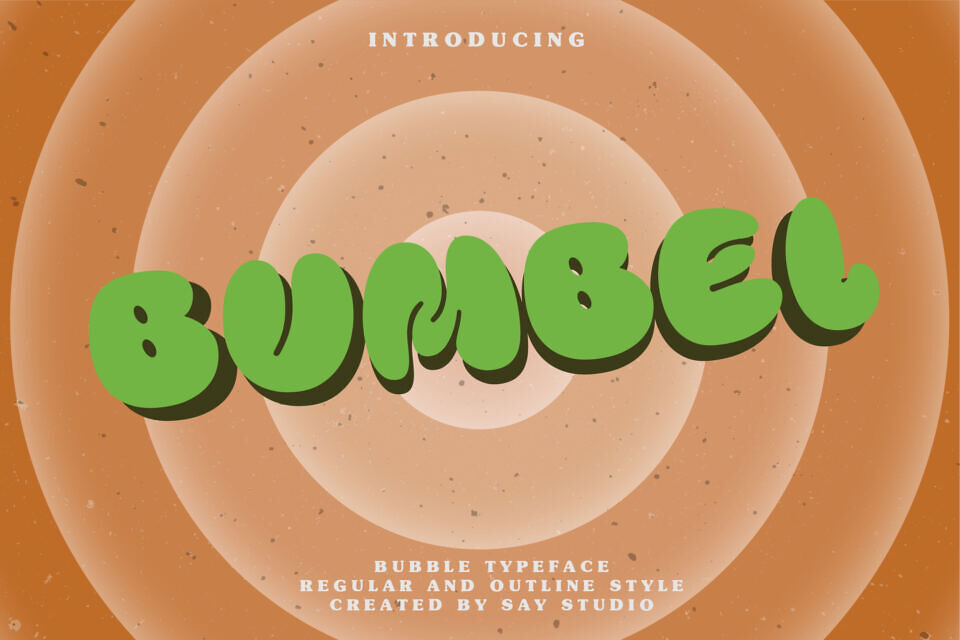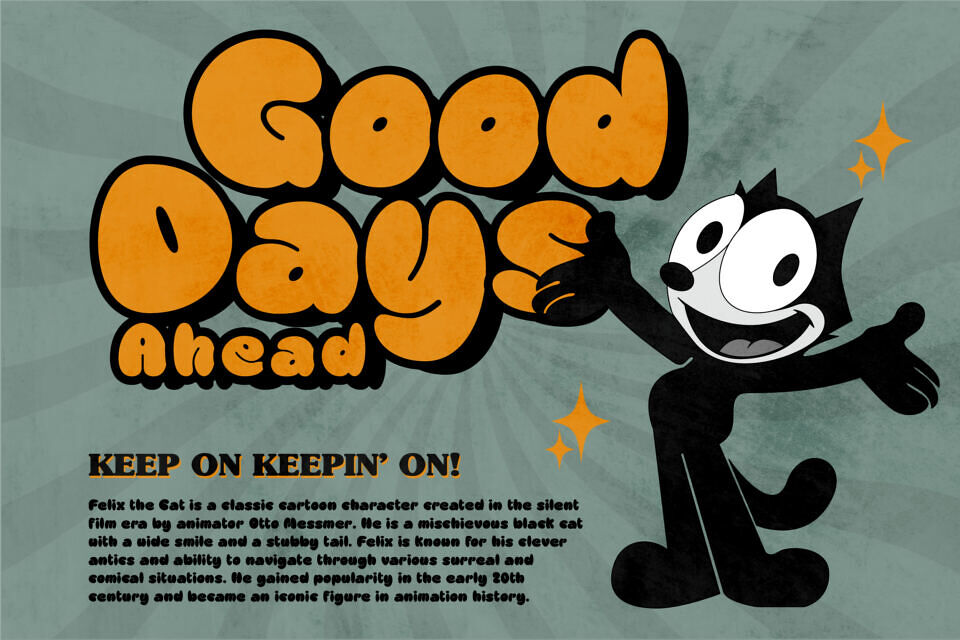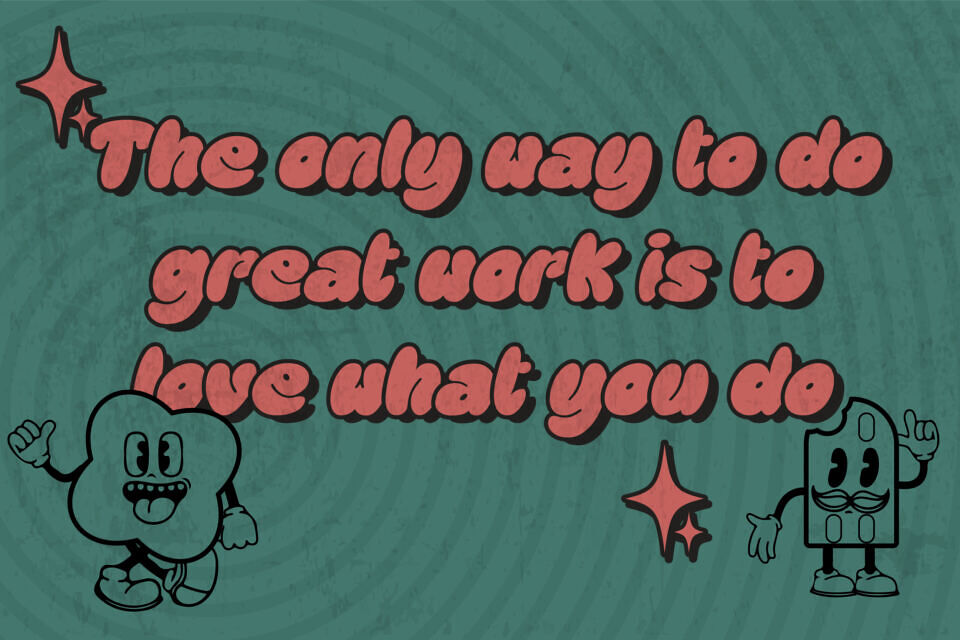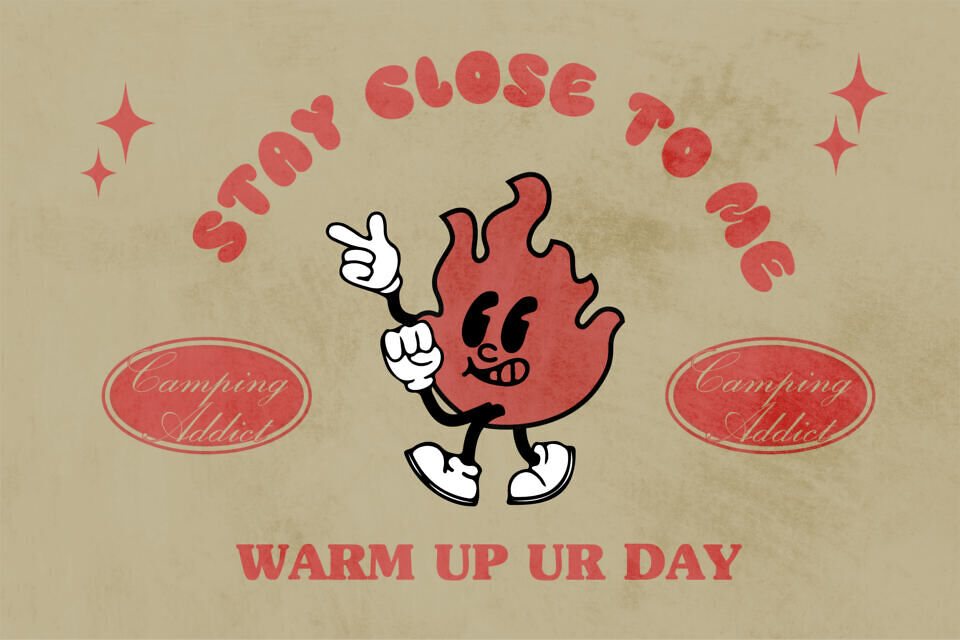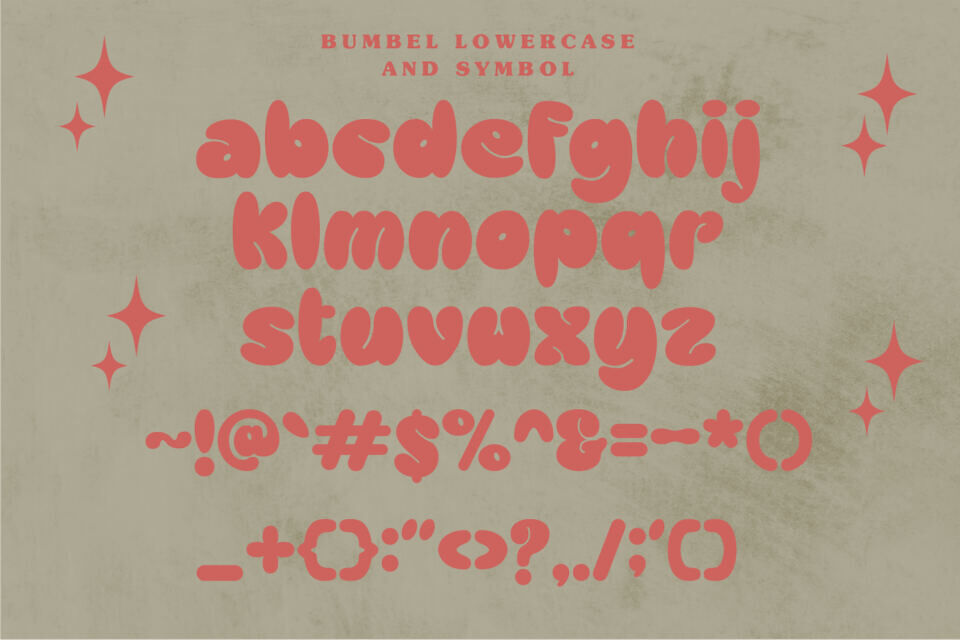
Bumbel is a captivating font that combines the essence of bubble dynamics with a modern and funky style. Its unique design exudes energy and playfulness, making it perfect for projects that require a fresh and vibrant look.
This typeface features rounded letterforms with soft edges, giving it a friendly and approachable feel. The bubbly contours of each character create a sense of movement and liveliness, capturing attention and adding a touch of whimsy to any design.